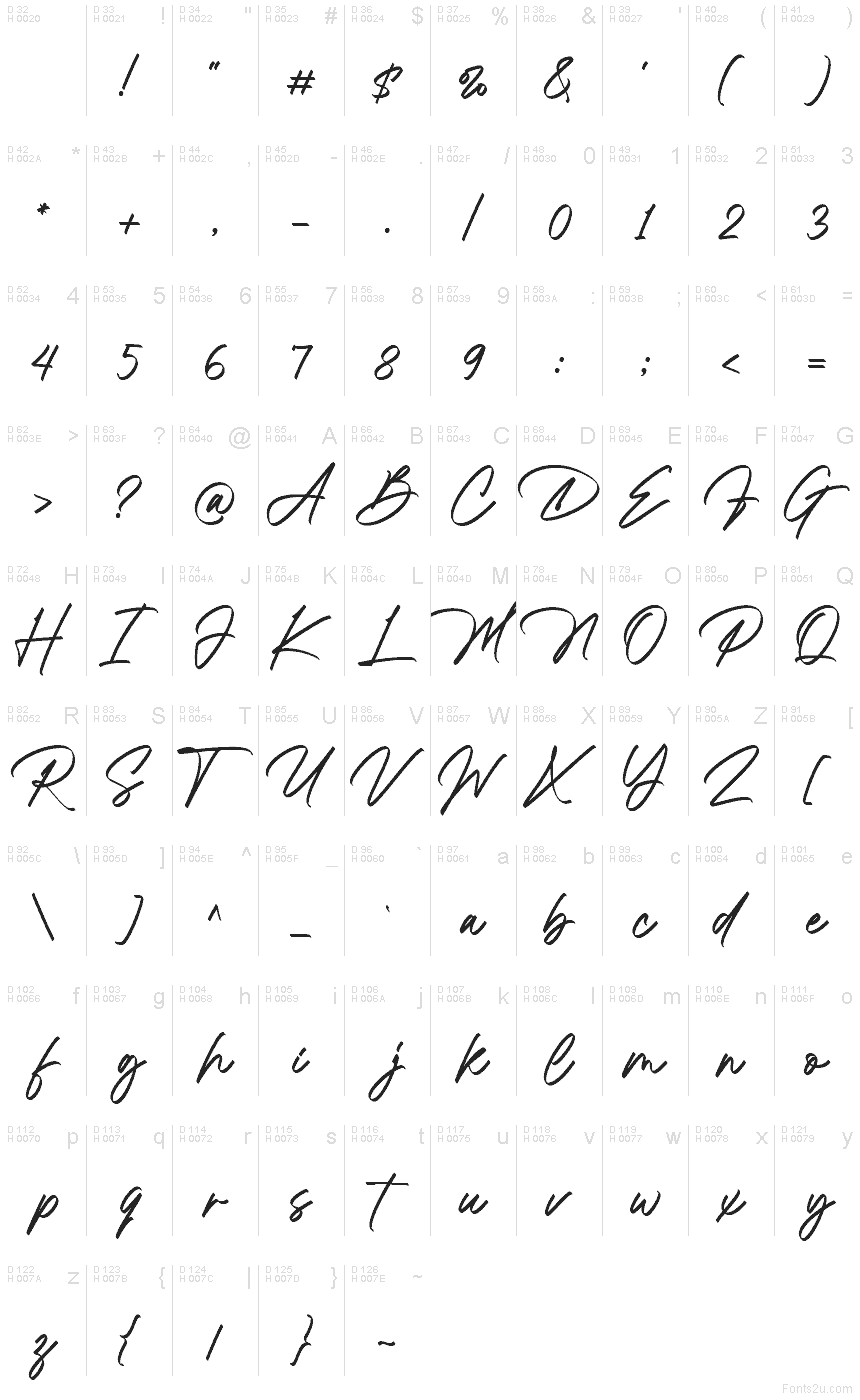
Soundfest
Soundfest font by Namara Creative is a free modern marker script font that finally gets the balance right between raw, hand-signed energy and clean, read-it-at-a-glance clarity. Smooth, pressure-shifted strokes taper into lively tails, while subtle inky texture keeps it from feeling sterile. With 450+ characters, alternates, and ligatures, it lets you swap forms to avoid repeats—so every word looks freshly written, not copy‑pasted.
Using Soundfest, headlines snap with pace and personality without turning messy. It shines on logos, product packaging, event posters, social headers, wedding suites, signatures, and lifestyle merch. Generous rhythm and confident slant pull the eye through a line, making this free font easy to size up for impact. Pair it with a clean grotesk or narrow sans for tidy contrast.